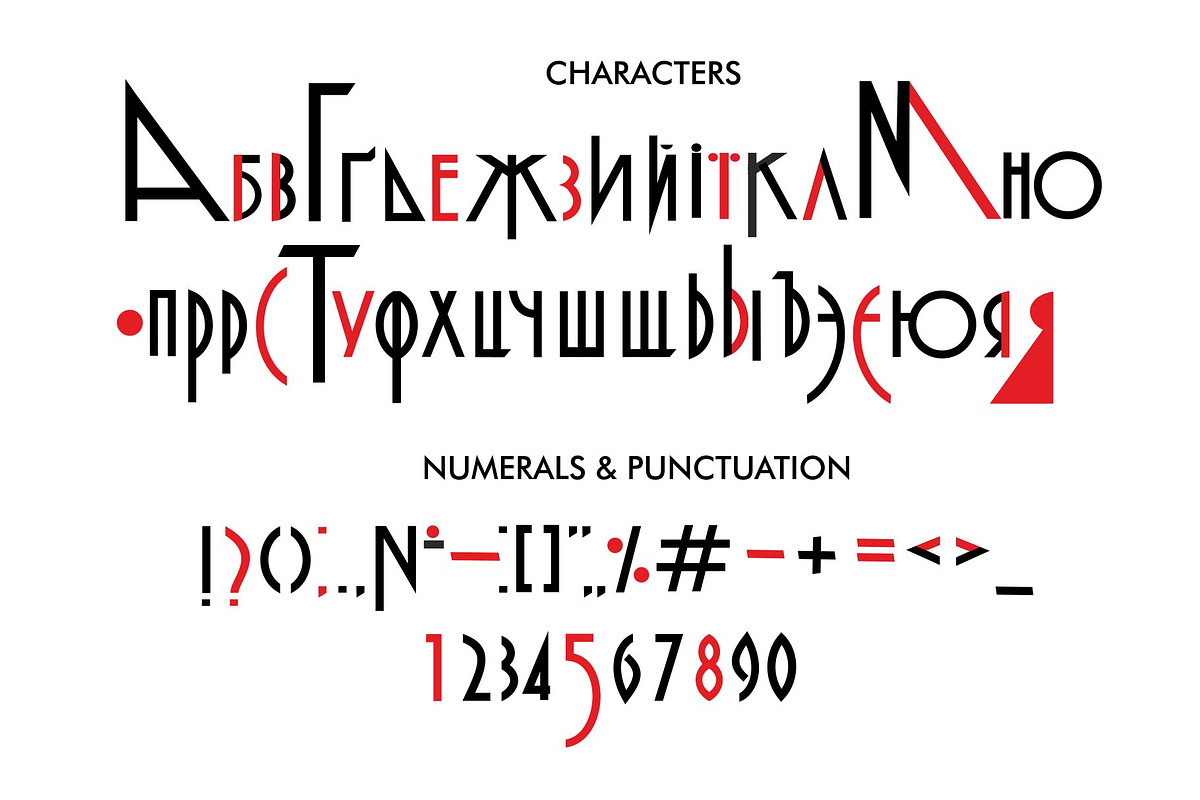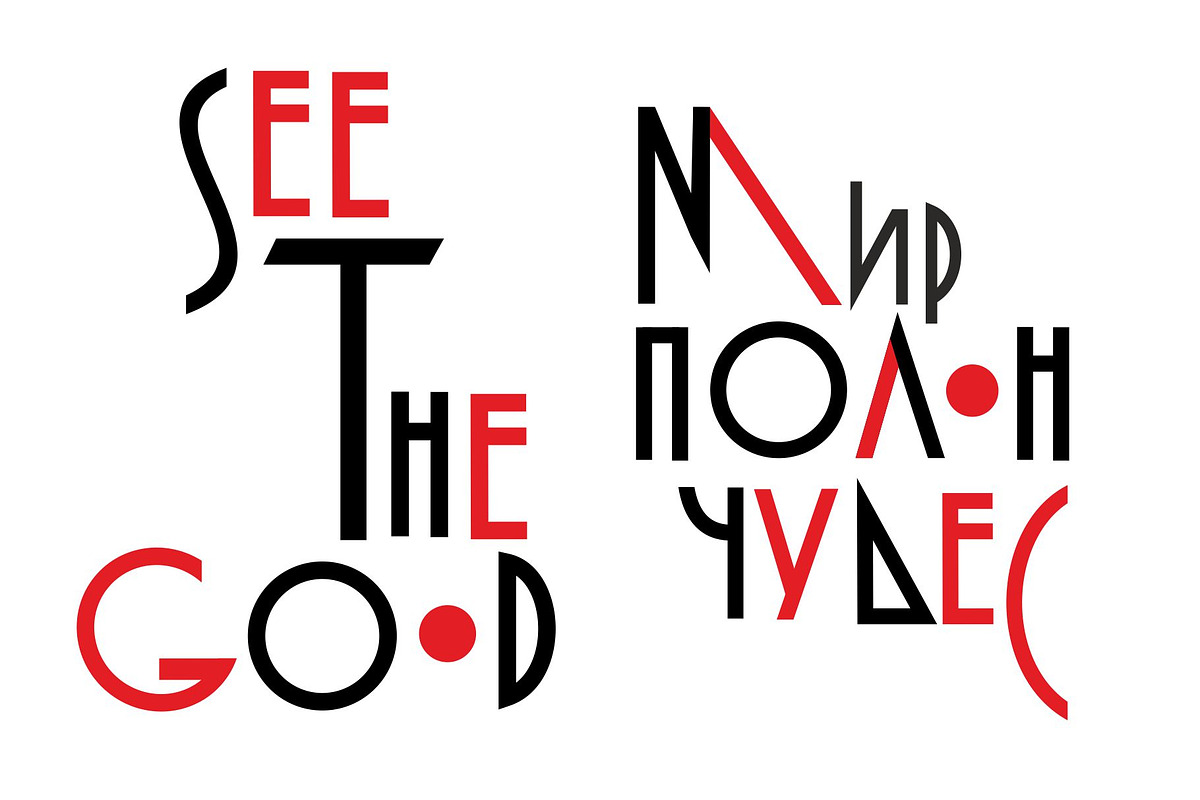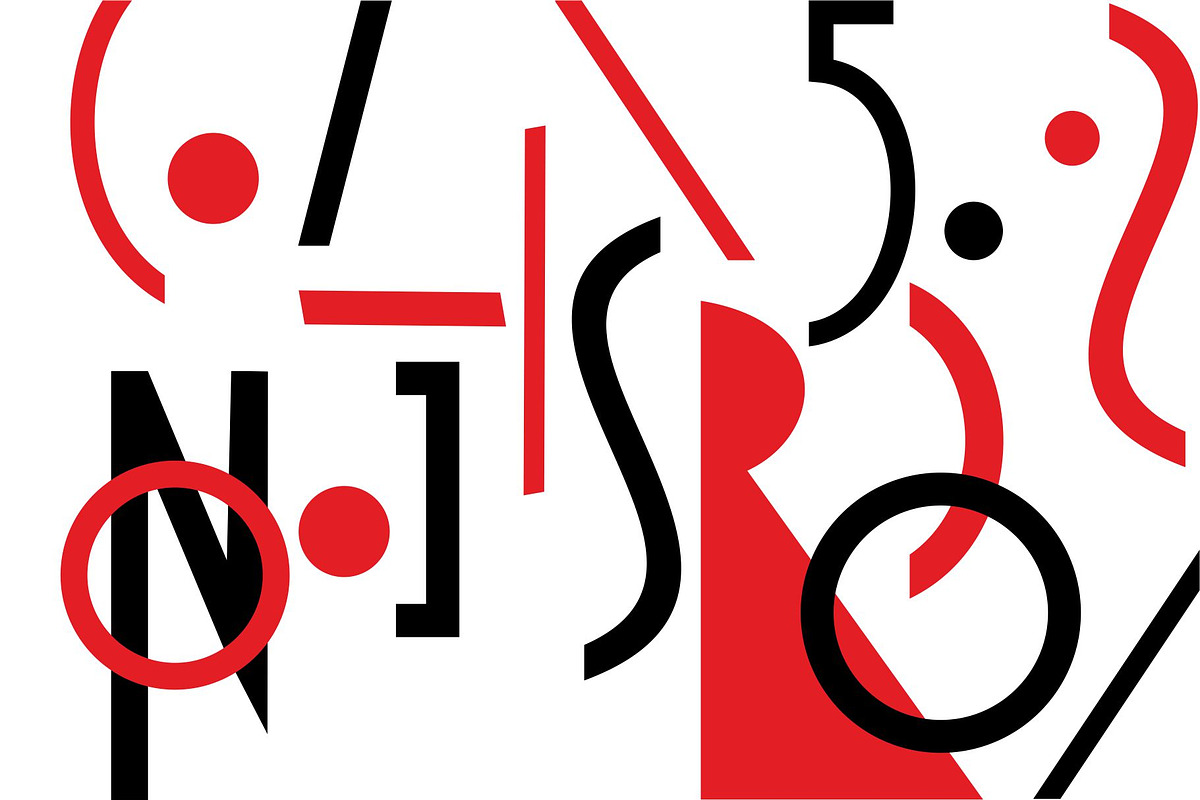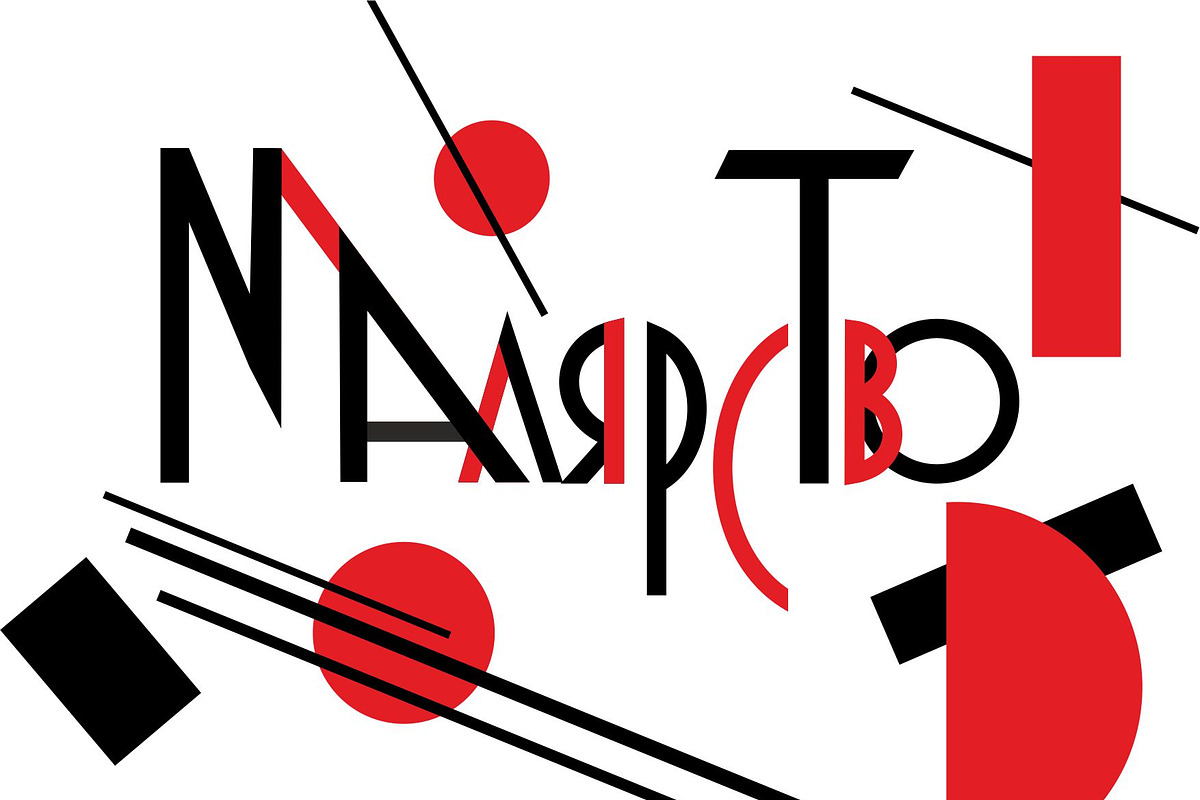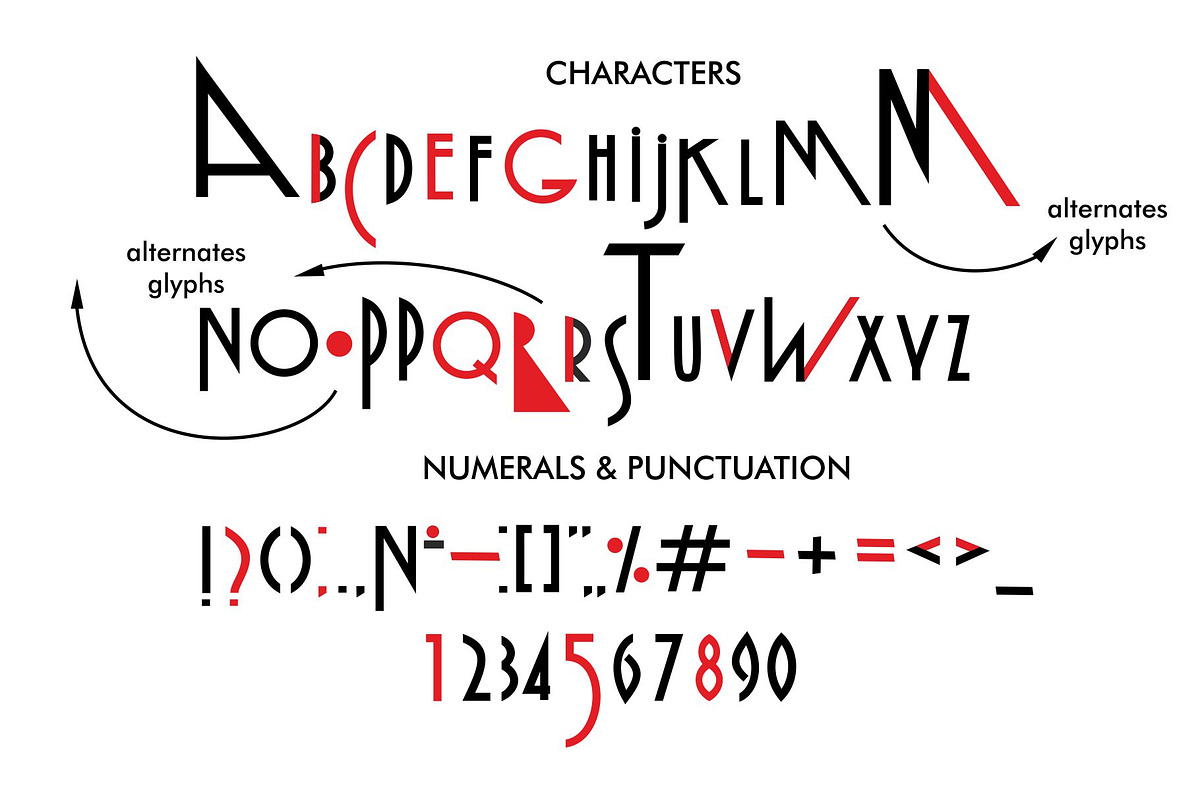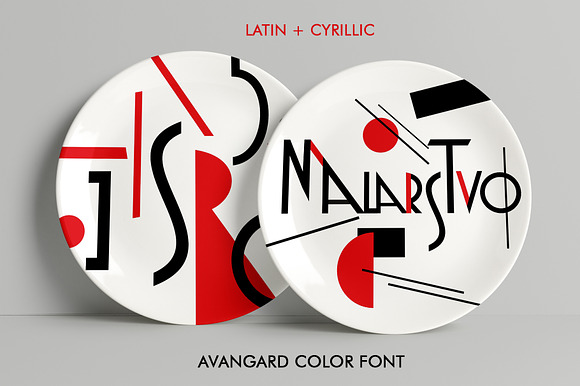
Malarstvo avangard color font
I'm happy to present you my new fun color OpenType-SVG font – Malarstvo with Latin and Cyrillic letters and alternates glyphs! I named this font "Malarstvo" because I was really inspired of lettering by Ukrainian artist Vasyl Krychevsky. Vasyl Krychevsky (1873-1952) was an outstanding Ukrainian architect, artist, scholar, and teacher. His contribution to the development of modern Ukrainian art and culture was great and diverse. He set a new trend in the art of book design in Ukraine. This font work nicely for all sorts of things including t-shirt design, typographic art, social media images and so much more!
Font features: Standard characters A-Z, 0-9,and punctuation + alternates glyphs + classic versionfor the Latin Basic and Western European set, Cyrillic А-Я set, additional letters for the Ukrainian language. Thanks and Enjoy!
Malarstvo avangard color font by Malena fits naturally into Branding, posters, packaging, typography.